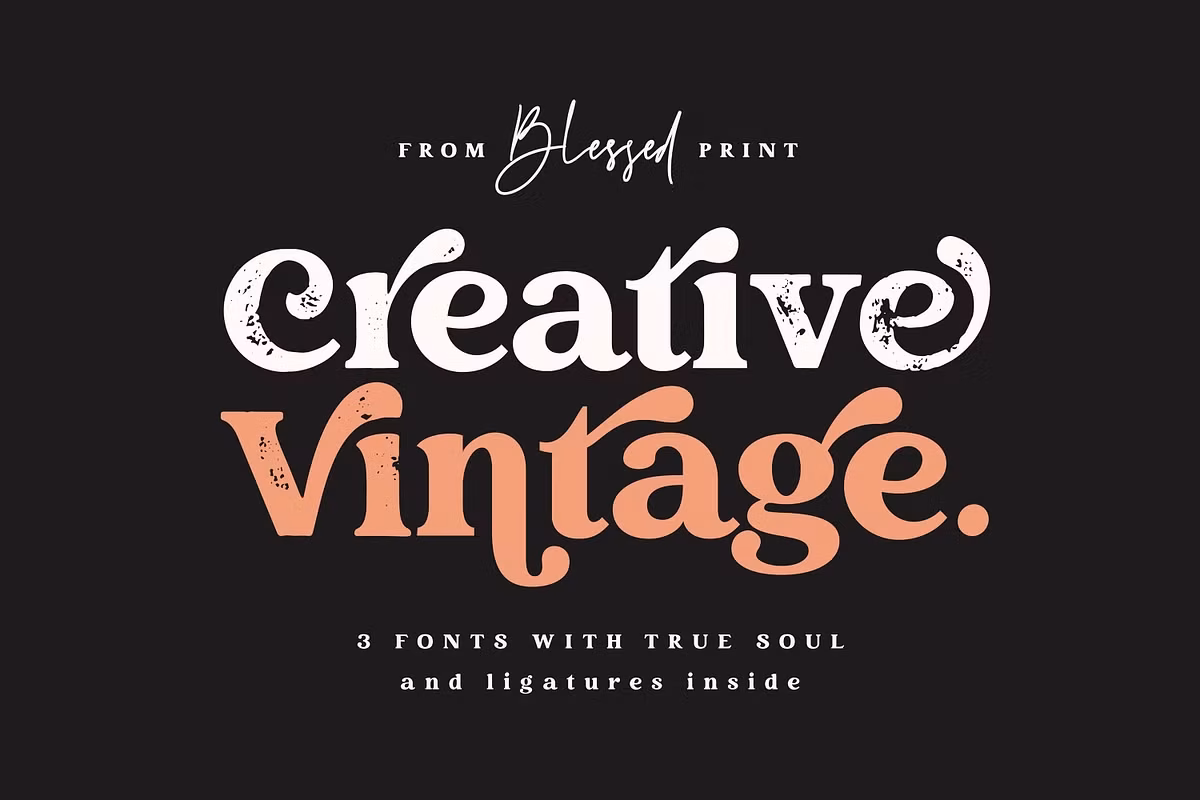
Creative Vintage Font Duo Free Download brings together the charm of classic serif styles with the flair of a handwritten script, creating a perfectly balanced typeface combo for standout designs. Ideal for logos, product packaging, labels, wedding stationery, and retro branding, this duo delivers that handcrafted, nostalgic feel with a modern twist.
Whether you're aiming for a rustic café logo or a timeless boutique label, the mix of structured serif and flowing script gives you the flexibility to create truly unique compositions. It’s like having two fonts that were made to dance together—elegant, warm, and totally unforgettable.